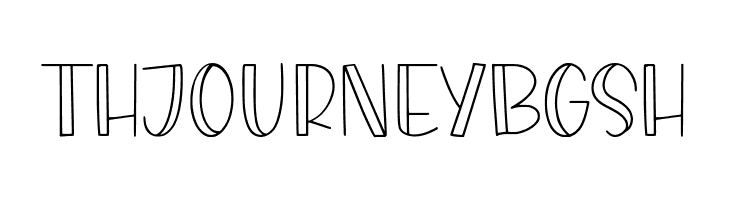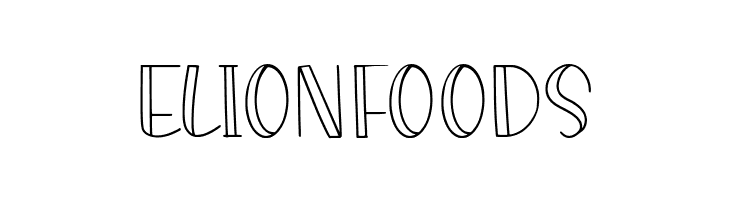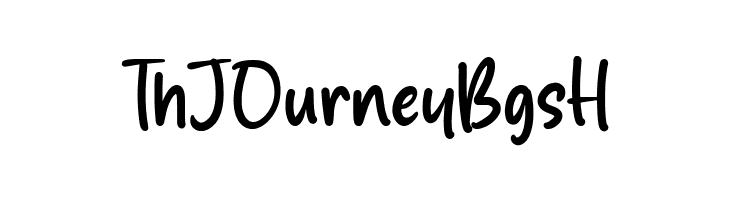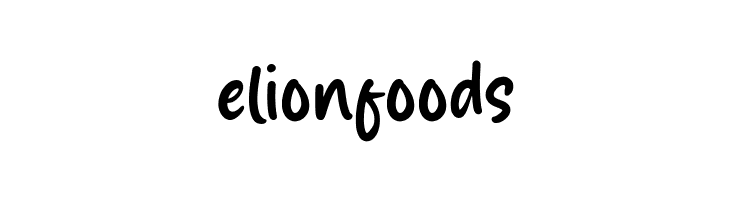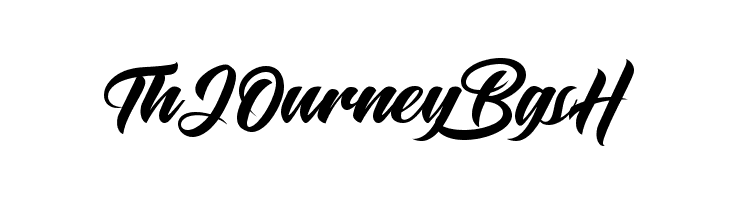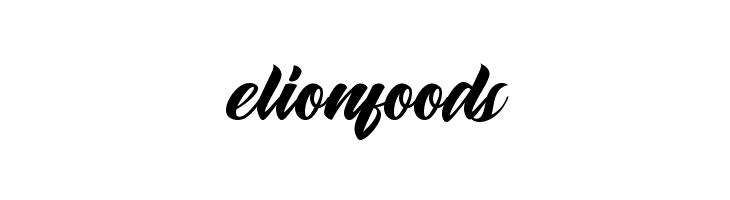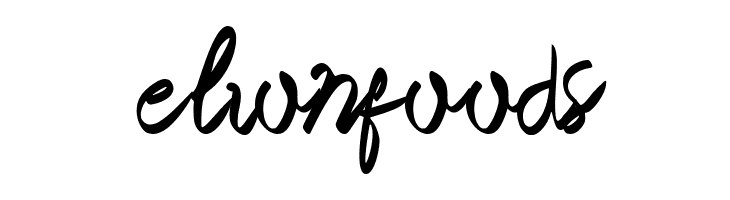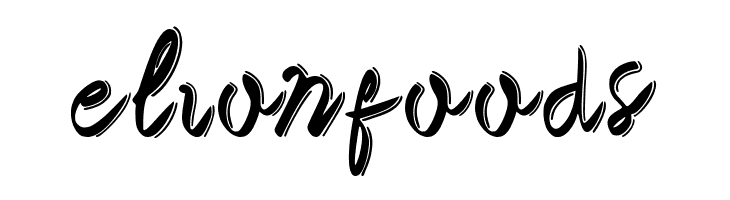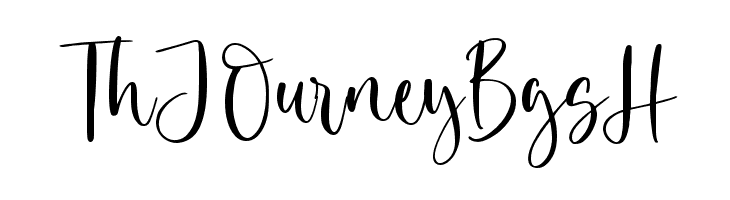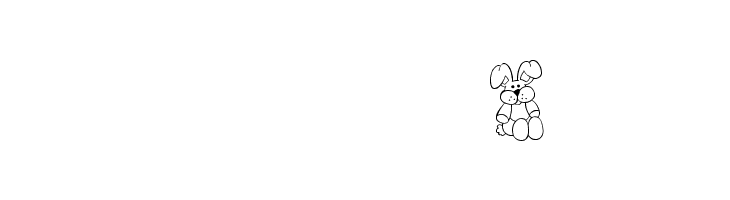
A bold and expressive script font with dynamic, flowing letterforms.
A playful, casual handwritten font with smooth, flowing lines.
A playful and modern font with tall, narrow letters and consistent stroke width.
A lively, handwritten script font with medium contrast and elegant curves.
A bold, modern font with geometric elements and high contrast.
A playful, hand-drawn font with a sketch-like, double-line style.
A jagged, horror-themed font with sharp, serrated edges.
A bold, expressive script font with dynamic, flowing strokes.
A bold, expressive script font with high contrast and dynamic flow.